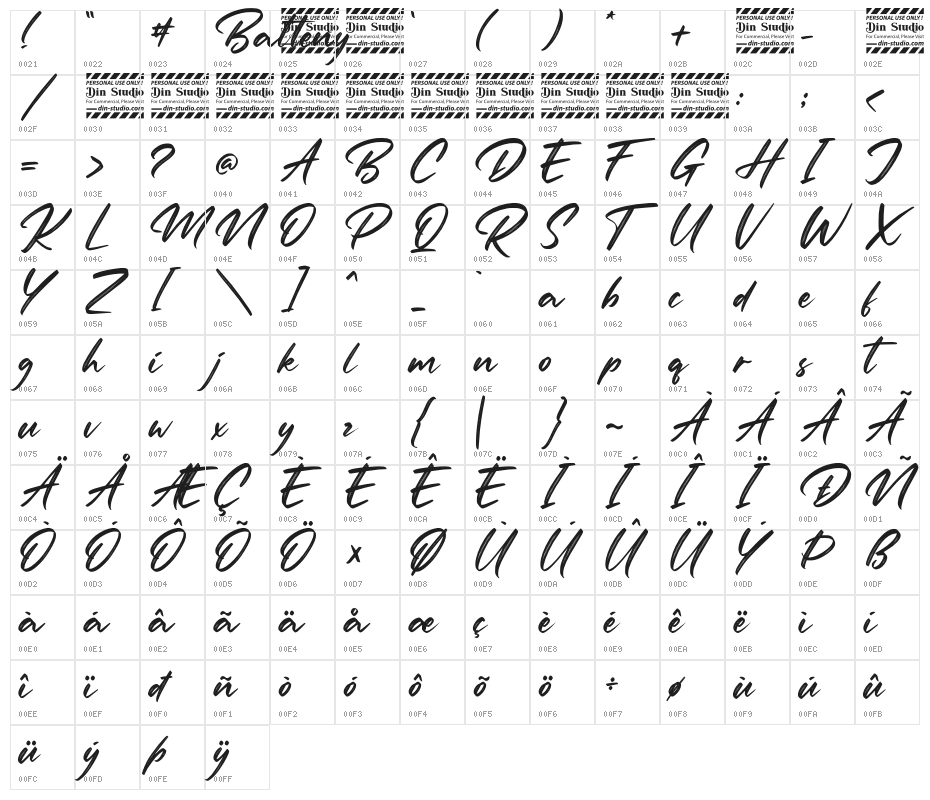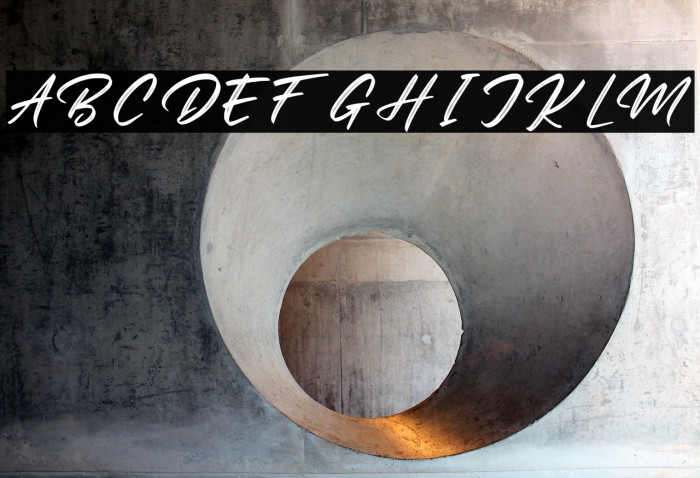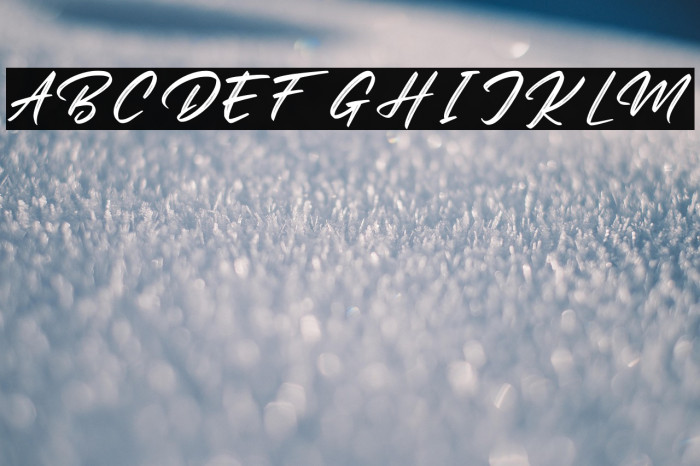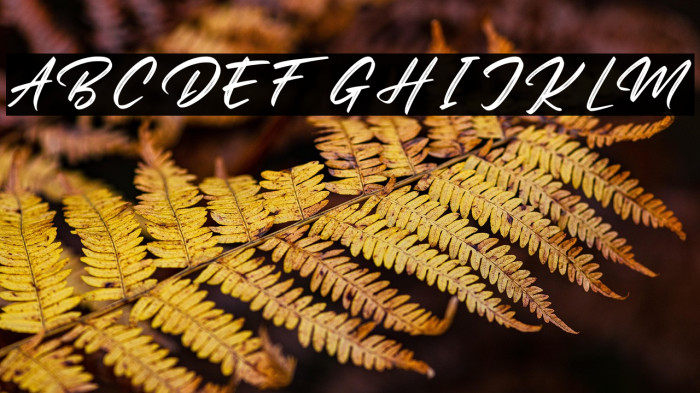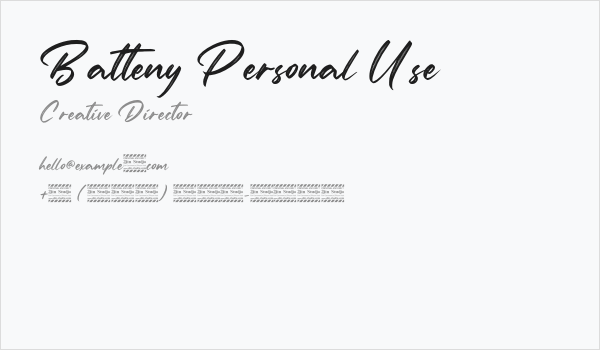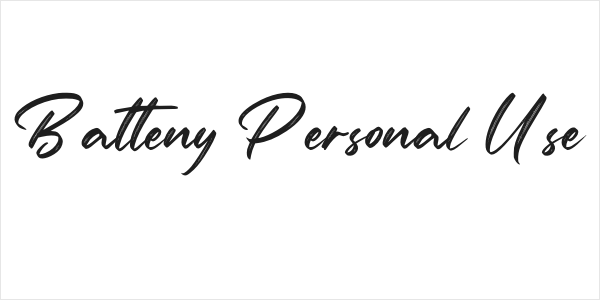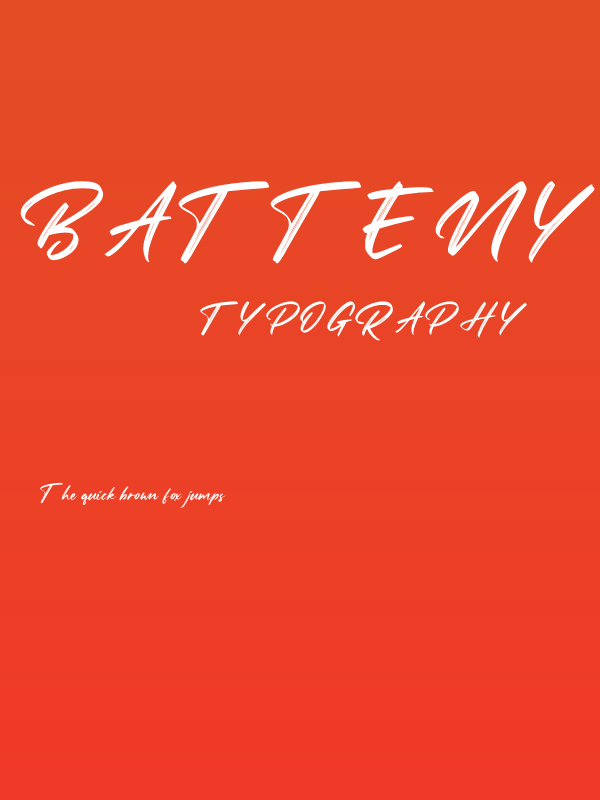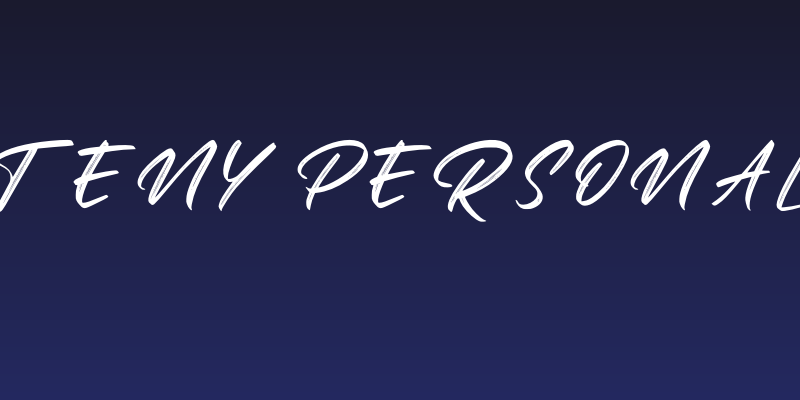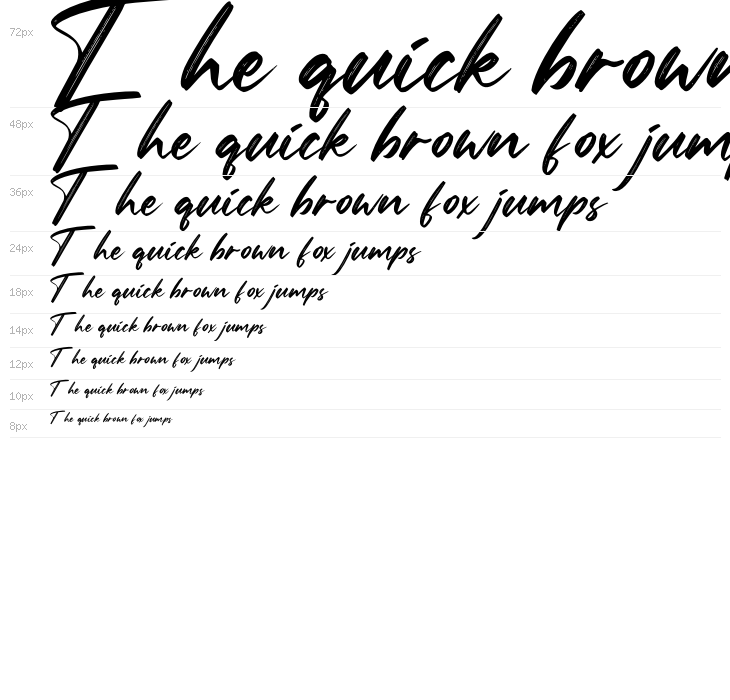
Batteny Personal Use Font
This font exudes a dynamic and expressive style, characterized by its bold, flowing script that mimics the fluidity of handwriting. The uppercase letters are elegantly slanted, giving a sense of movement and energy, while the lowercase letters maintain a consistent rhythm with their sweeping curves and loops. The font's overall appearance is both artistic and modern, making it suitable for creative and stylish applications. The characters are well-spaced, ensuring readability despite their intricate design. This font is ideal for projects that require a personal touch, such as invitations, branding, and artistic designs.
| Overall Style | Modern, Artistic |
| Use Case | Logos, Invitations, Artistic Designs |
| Proposed Projects | Ideal for invitations, branding, artistic designs, and any project needing a personal touch. |